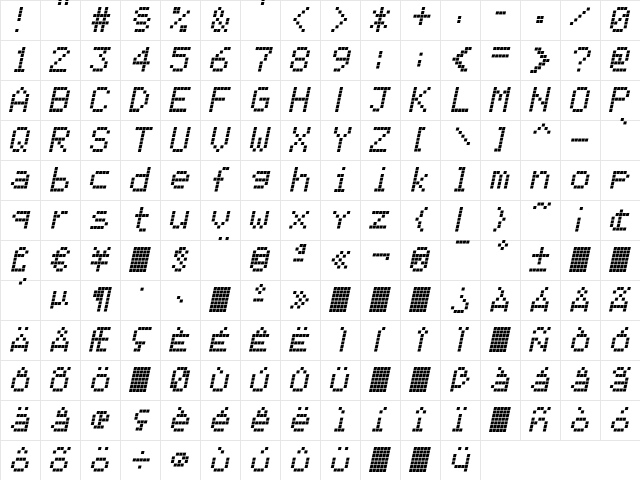
CallOne-Italic Regular
CallOne-Italic is a composed and adaptable typeface that performs quietly and consistently across a wide range of design contexts. Its italic angle brings a sense of urgency and motion to the letterforms.
Pro Tip: Try CallOne-Italic for annotation and caption copy alongside an upright companion — the contrast in angle creates a dynamic but ordered typographic system.